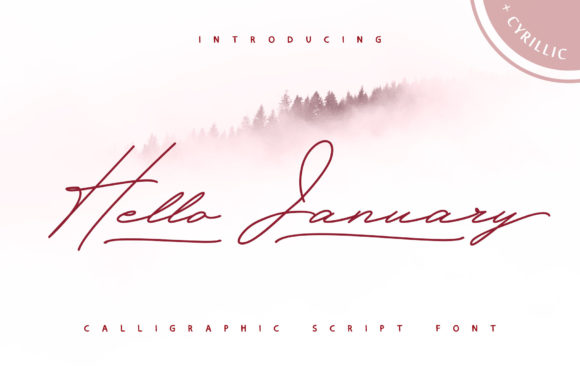
Hello January Font
Unleash your creative spirit with the captivating Hello January font family, a beautiful script font that's perfect for adding a touch of elegance and charm to your designs. This hand-crafted font is the brainchild of Iradvilyuk, a renowned font designer known for creating stunning and versatile typefaces. With its graceful curves and delicate details, Hello January will transform your words into works of art, captivating your audience and leaving a lasting impression.
Dive into a world of endless possibilities with Hello January. Whether you're designing logos, branding materials, wedding invitations, social media posts, or quotes, this font will elevate your designs to new heights. Its timeless beauty will add a touch of sophistication to any project, while its versatility allows it to adapt seamlessly to a wide range of styles and themes.
Hello January comes complete with a collection of beautiful symbols that will take your designs to the next level. These symbols, meticulously crafted to complement the font's overall aesthetic, will add an extra layer of charm and interest to your creations. From whimsical hearts to elegant flourishes, these symbols will help you create truly unique and memorable designs.